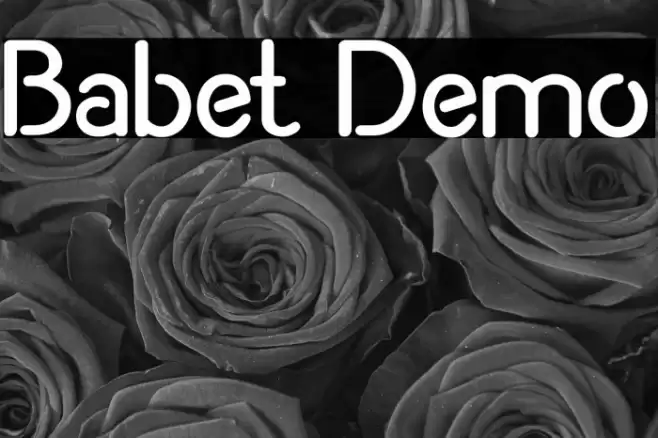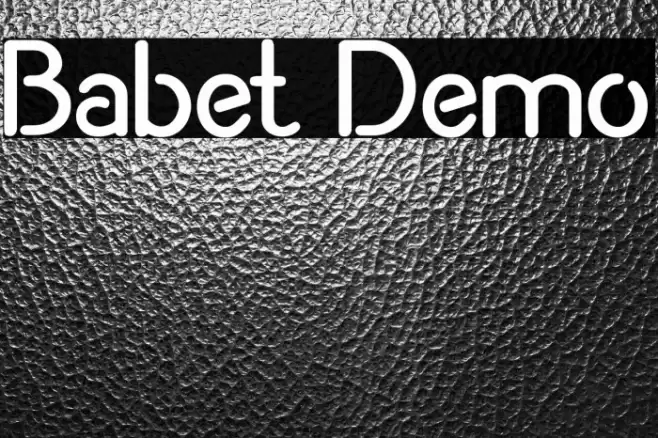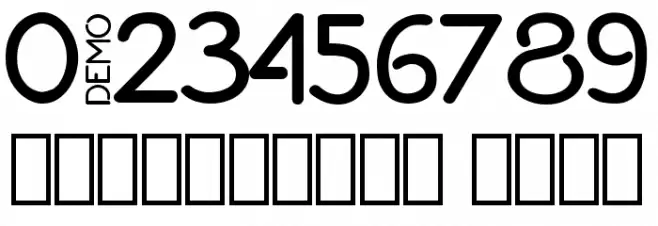
Babet Demo Font
Babet Demo Description
This font features a modern and sleek design with rounded edges and a clean, geometric structure. The characters are evenly spaced, providing a balanced and harmonious appearance. The uppercase letters are bold and assertive, while the lowercase letters maintain a friendly and approachable feel. The numerals are consistent with the overall style, ensuring readability and aesthetic appeal. Special characters are included, adding versatility to the font's application. Its contemporary look makes it suitable for various design projects.
A modern, rounded font with a clean, geometric style from Uncategorized fonts.